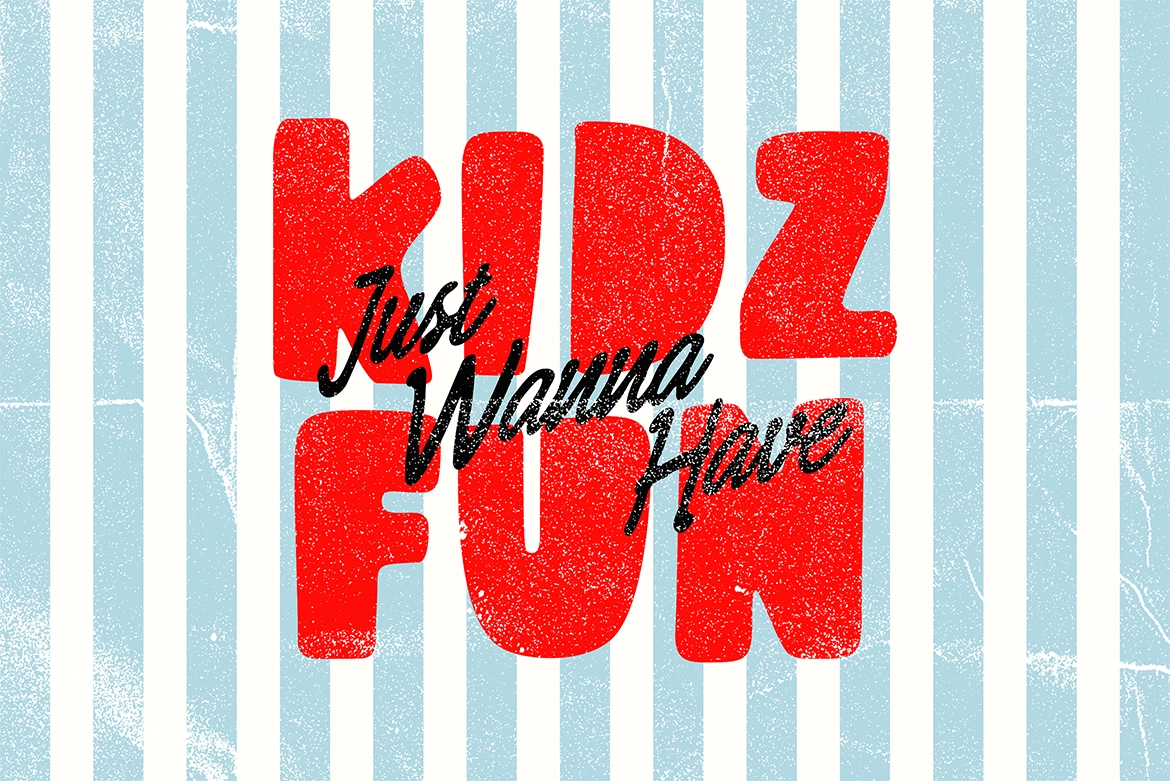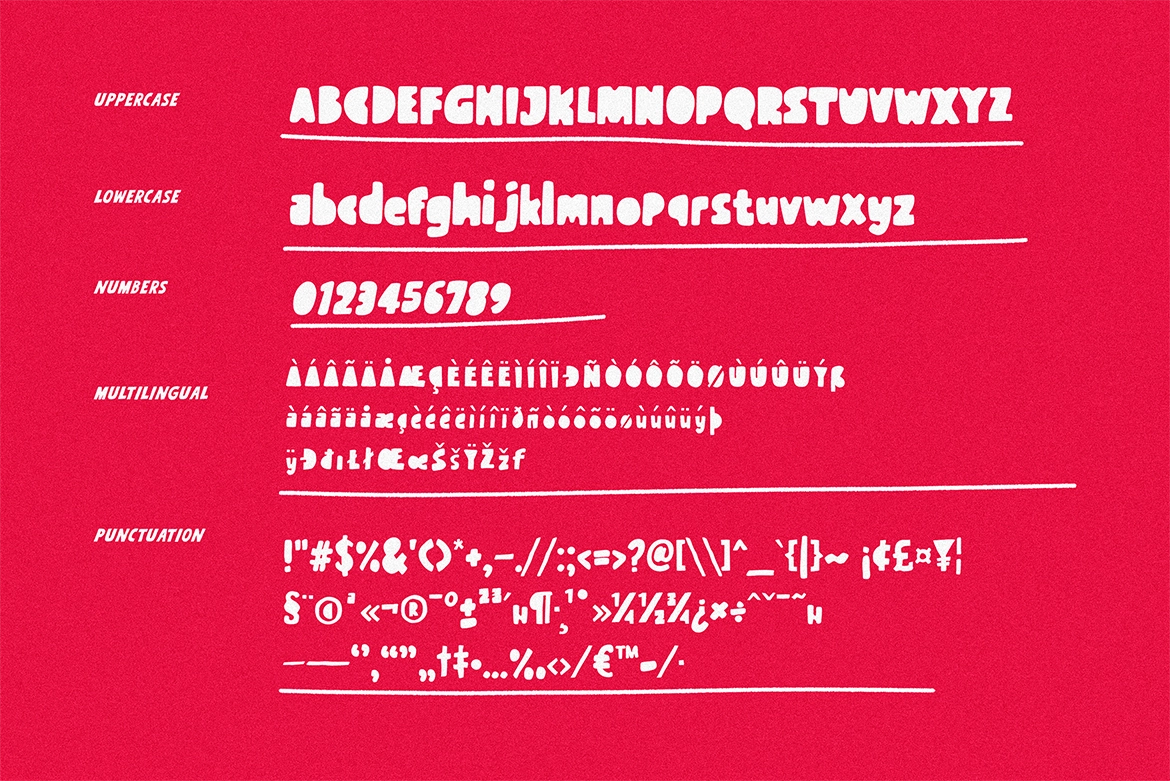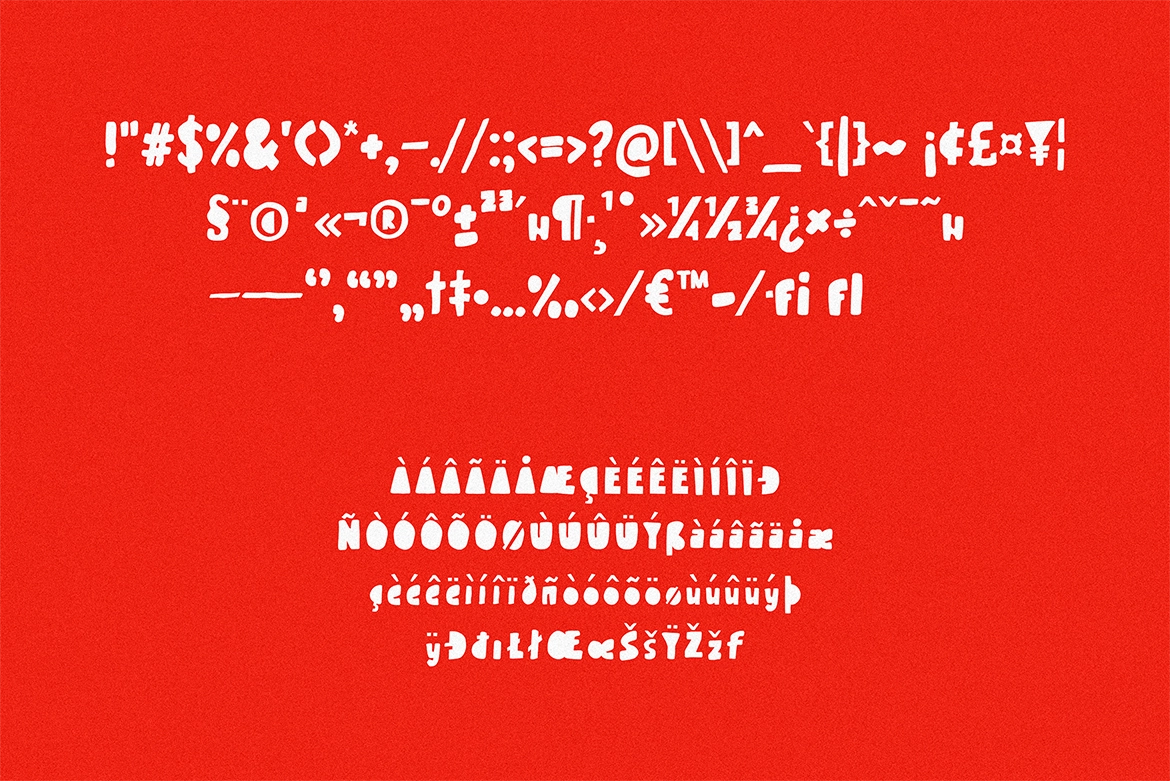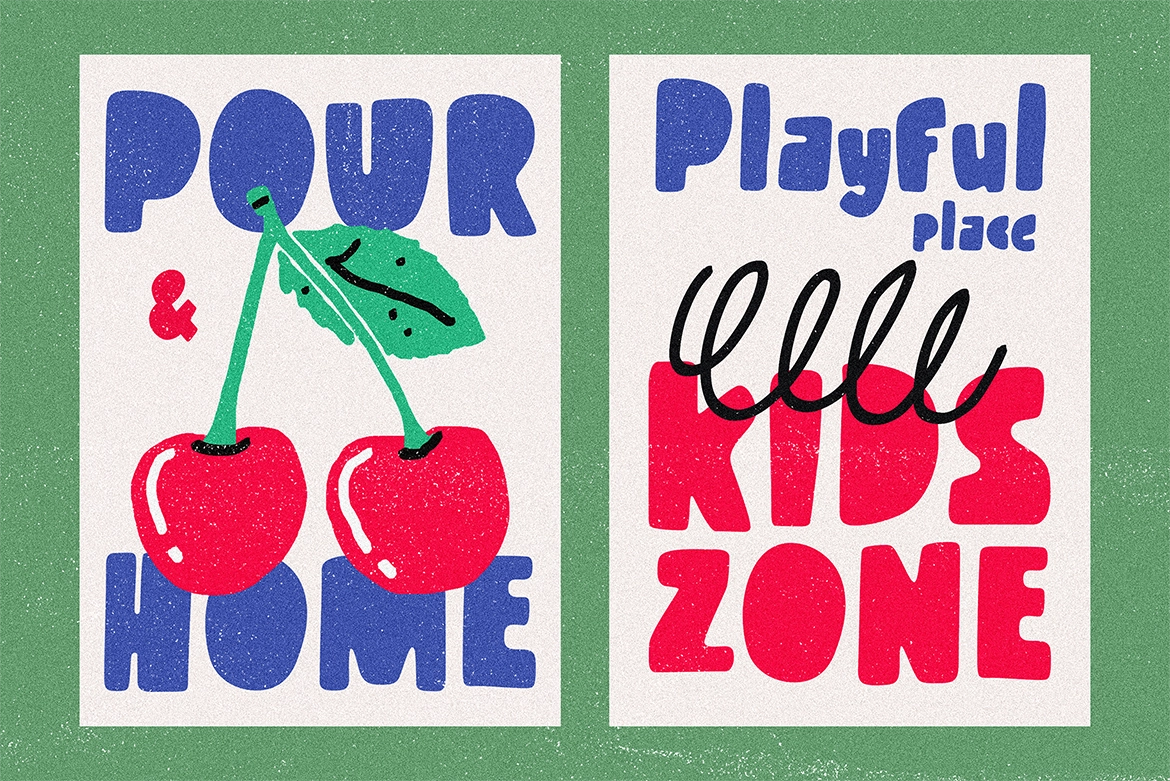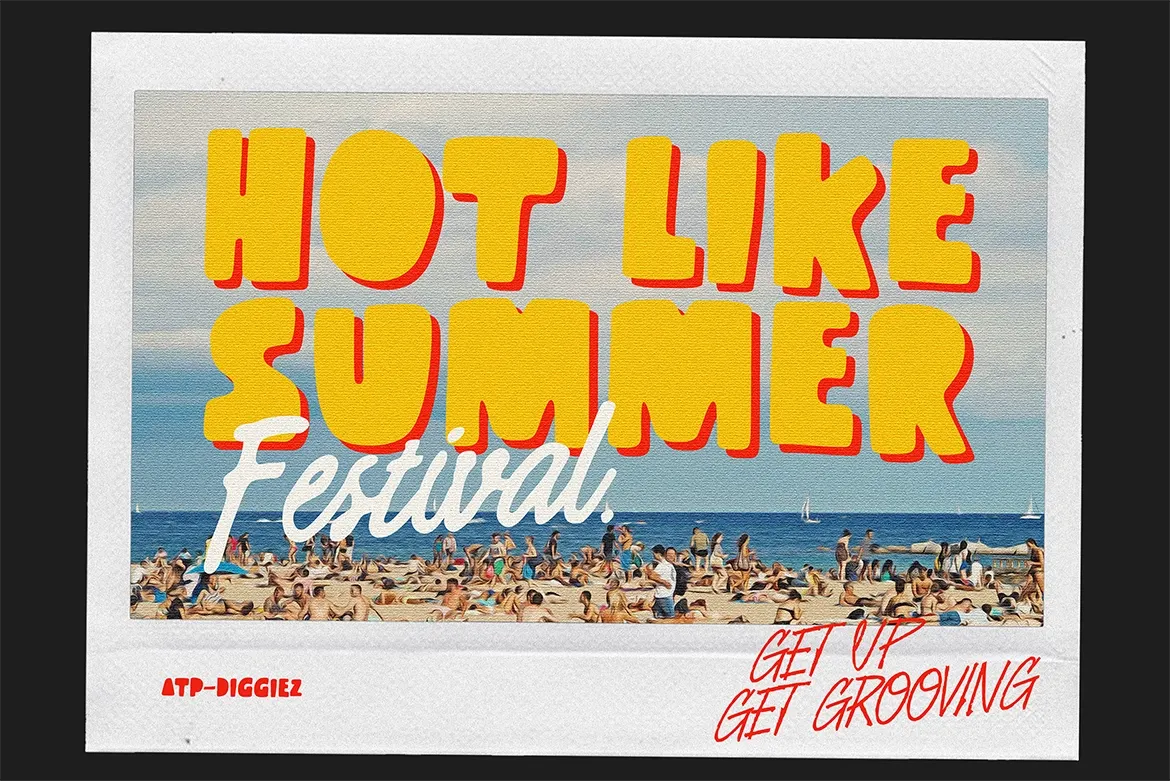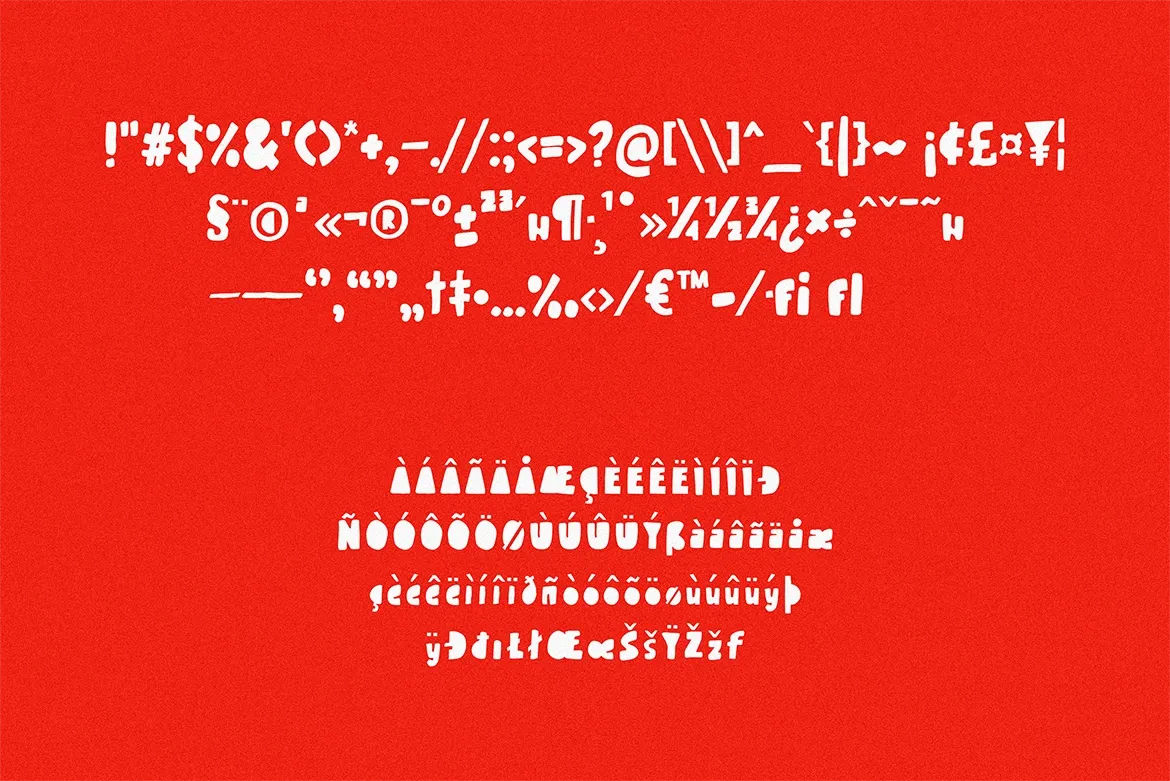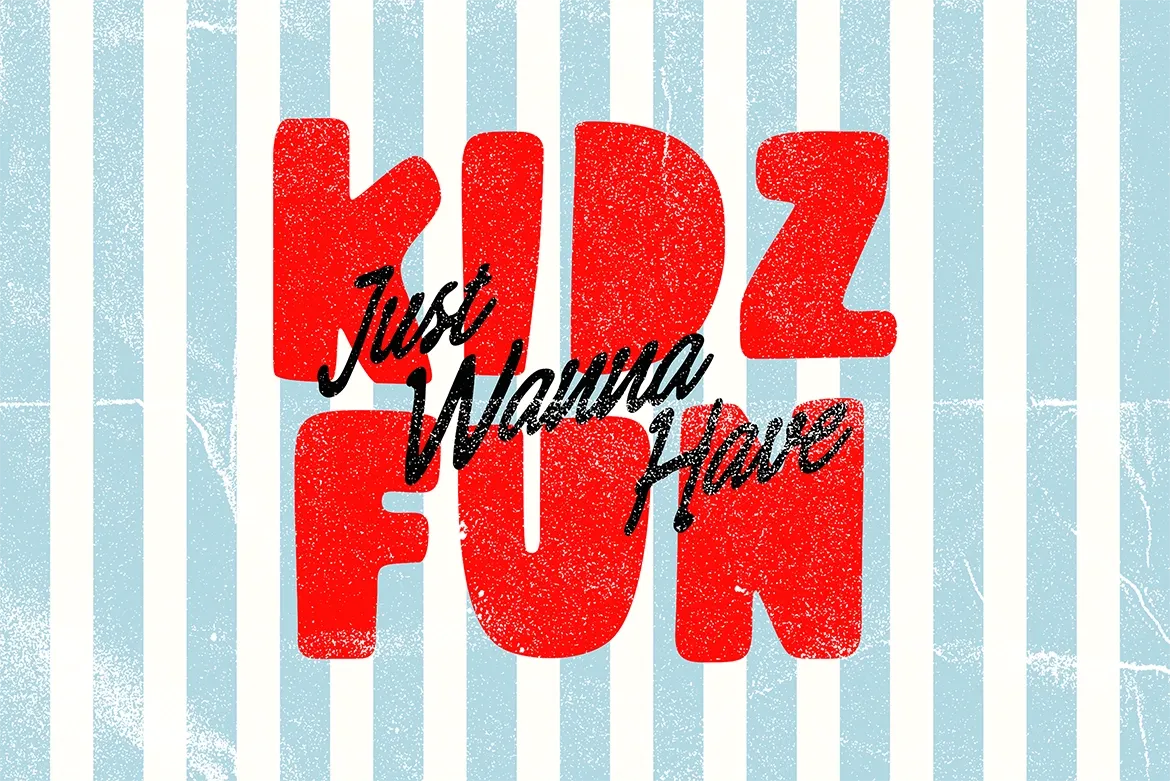
Diggiez - Bold Fancy Font
Diggiez is a bold geometric display font with playful curves, rounded terminals, and slightly irregular shapes that give it a unique, hand-crafted energy. Inspired by 1970s psychedelic posters and mid-century pop art design, it delivers a nostalgic yet modern aesthetic.
Its heavy structure and dynamic letterforms make Diggiez stand out instantly, perfect for eye-catching logos, packaging, editorial headlines, and digital artwork. The font’s bold geometry and retro personality bring a strong visual rhythm that captures attention across print and screen.
Ideal for designers who love expressive, vintage-inspired typography with a modern twist.